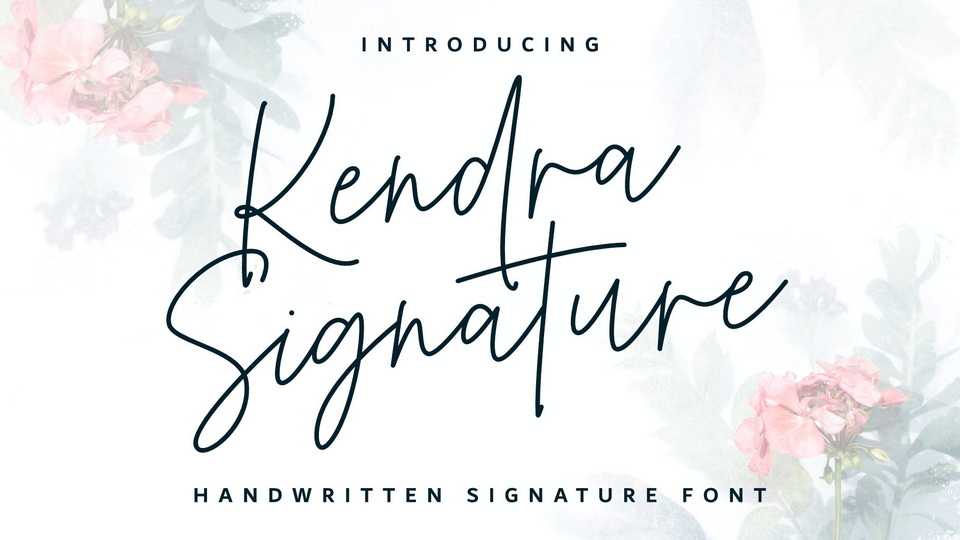
Download Kendra Signature font, a modern handwritten signature script with a monoline flow that you can use to perfect your design. Kendra Signature font is perfect for branding project, websites project and so on.